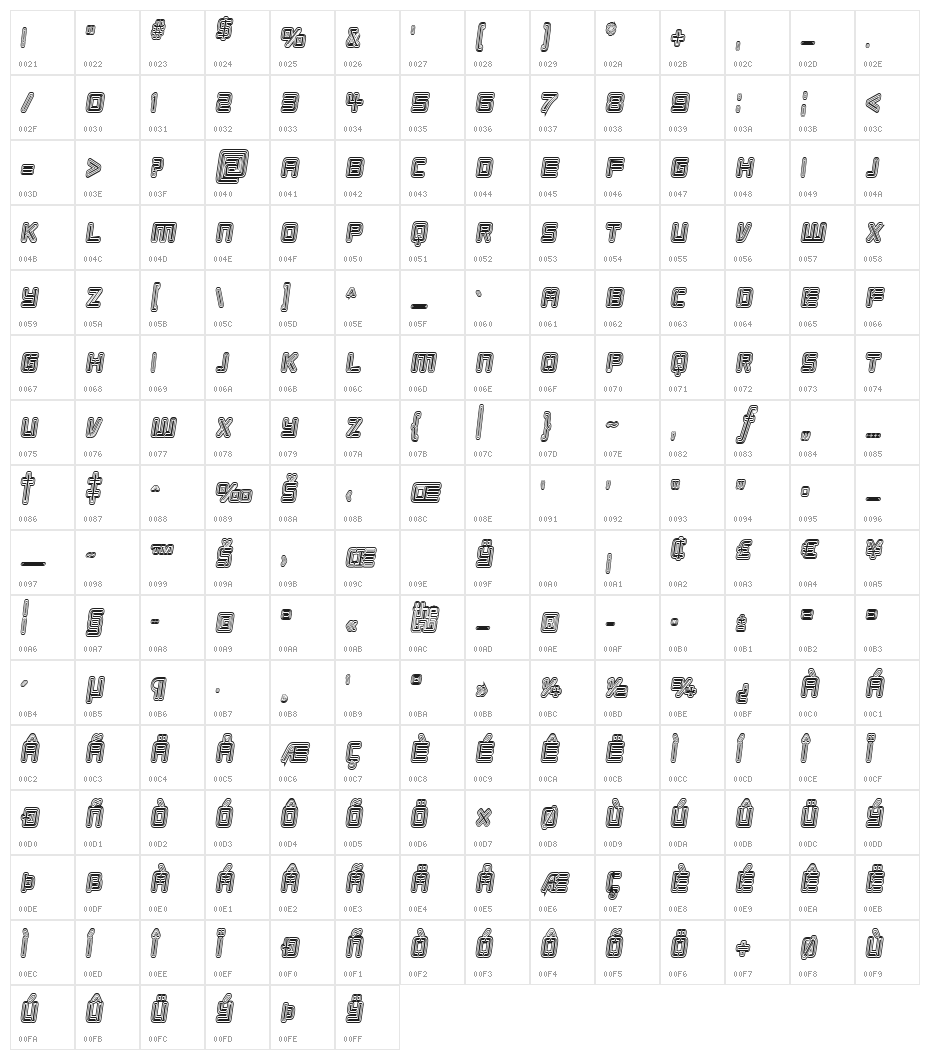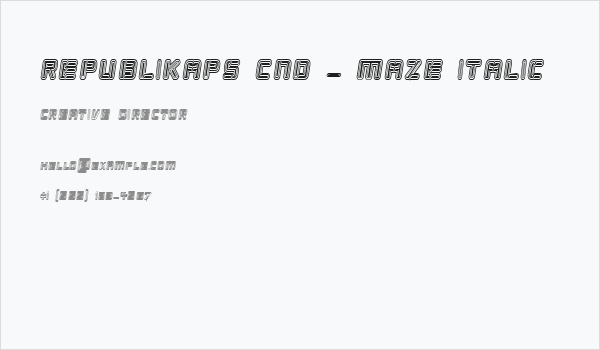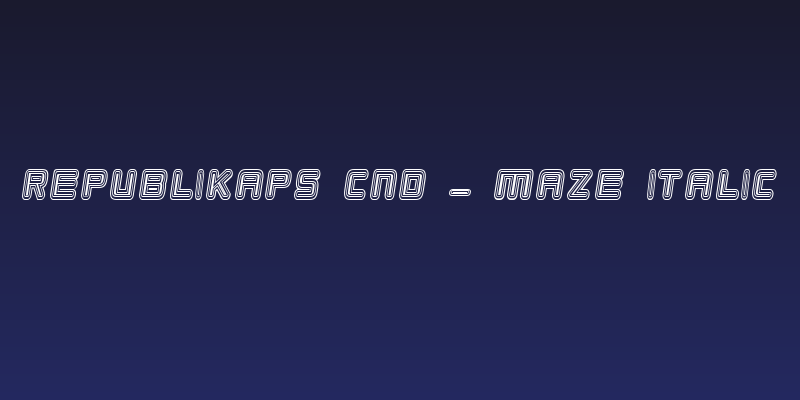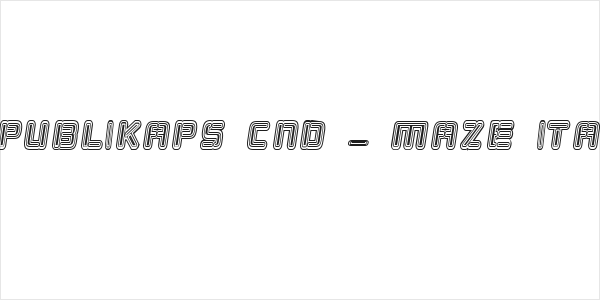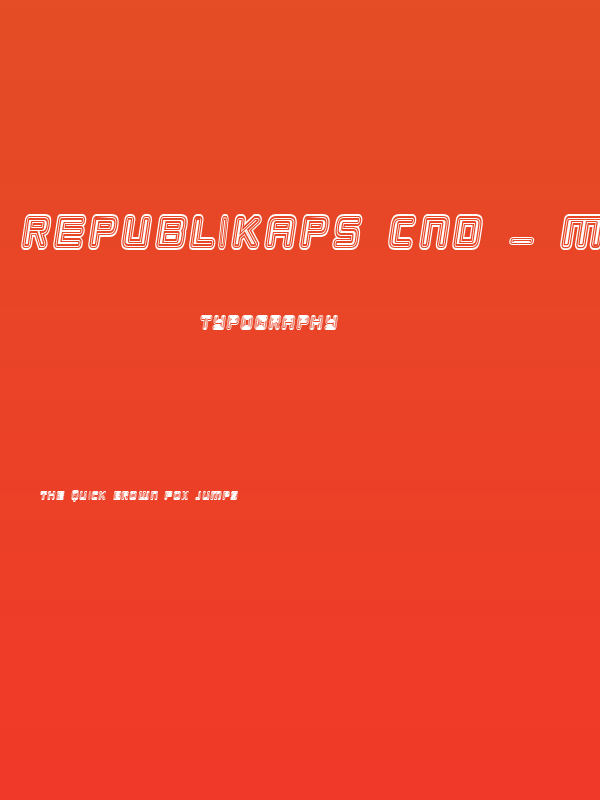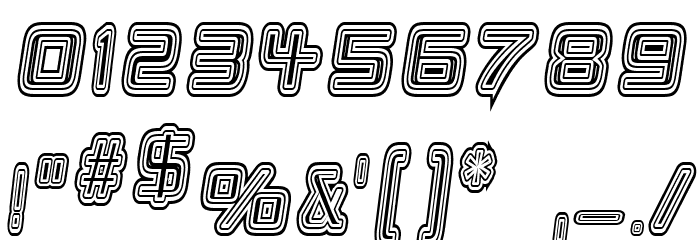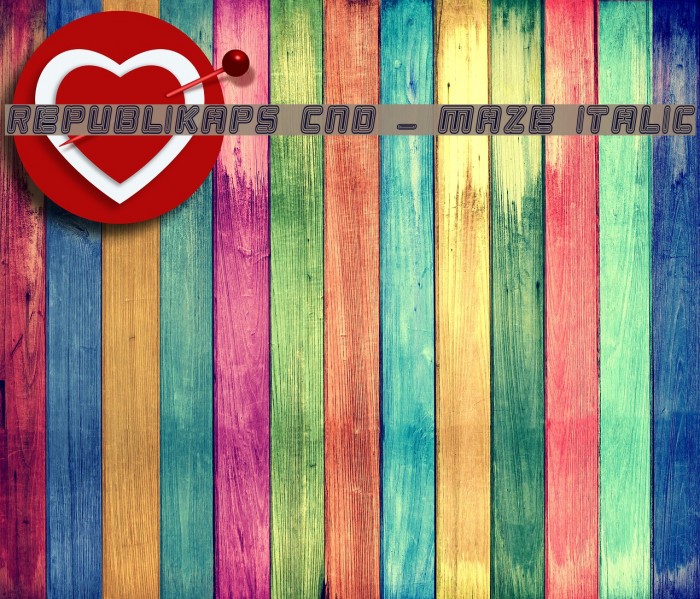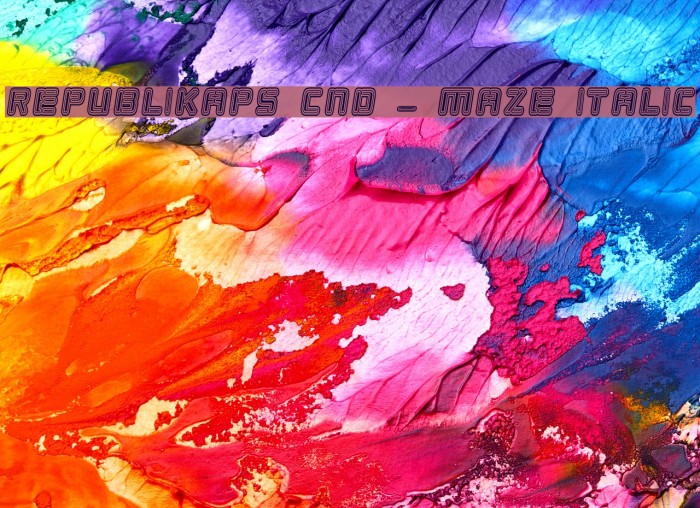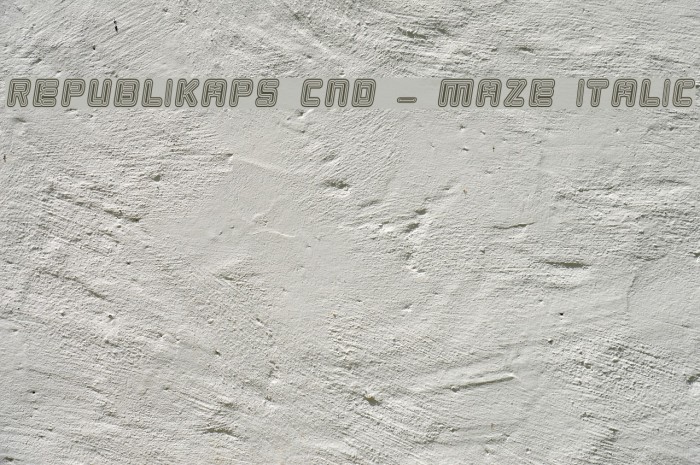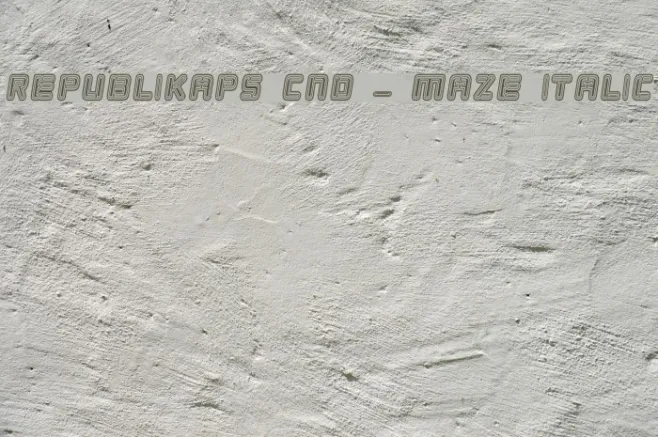
Republikaps Cnd - Maze Italic Font
Republikaps Cnd - Maze Italic Description
This font features a bold and dynamic design with a maze-like pattern that creates a sense of movement and depth. The characters are outlined with multiple layers, giving them a three-dimensional appearance. The italic slant adds a sense of speed and modernity, making it stand out in any design. The condensed width allows for efficient use of space, while the intricate detailing ensures that each letter is distinct and eye-catching. This font is perfect for projects that require a bold statement and a futuristic feel.
| Overall Style | Modern, Futuristic |
| Proposed Projects | Ideal for futuristic branding, tech-related designs, posters, and eye-catching headlines. |